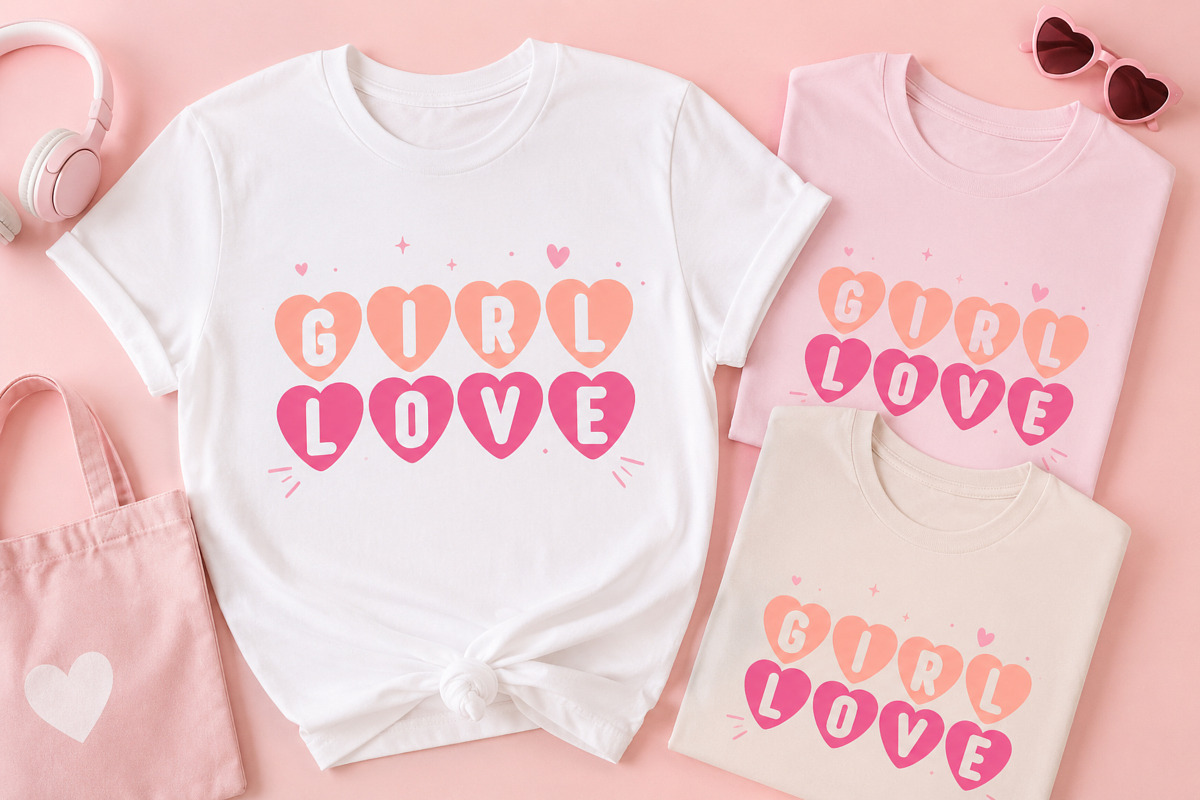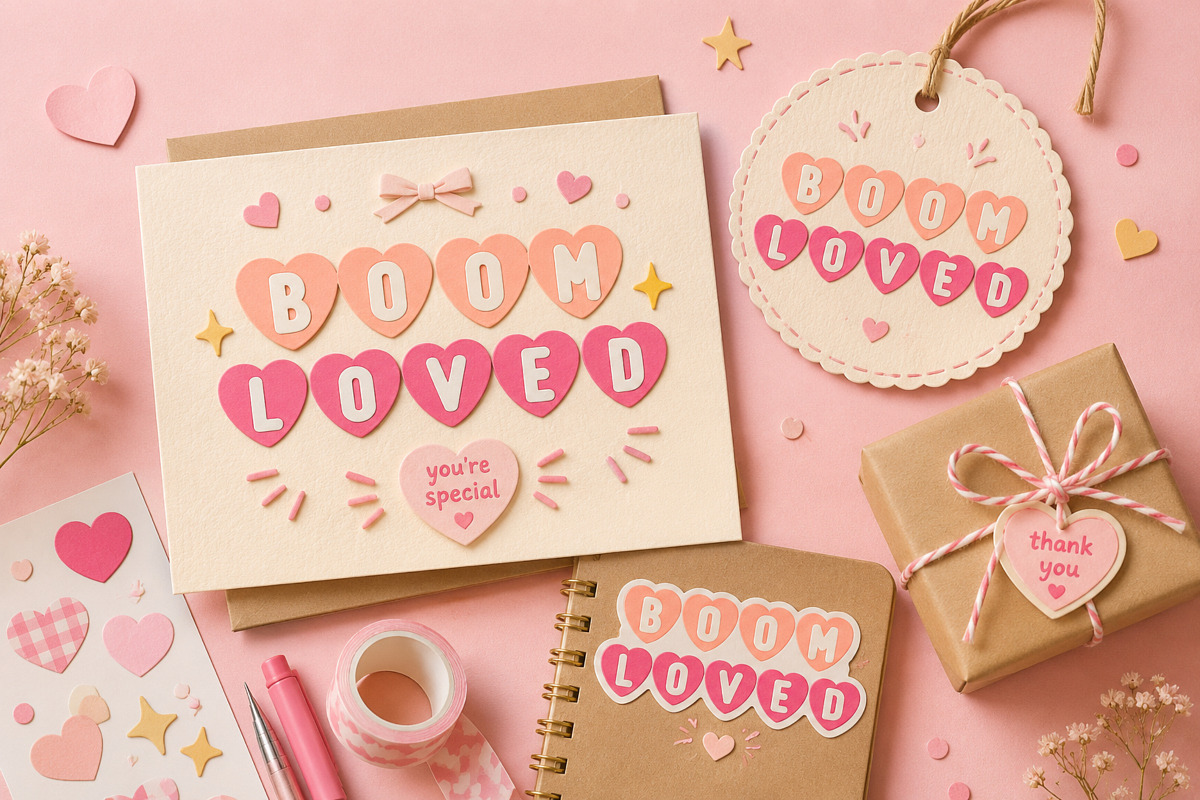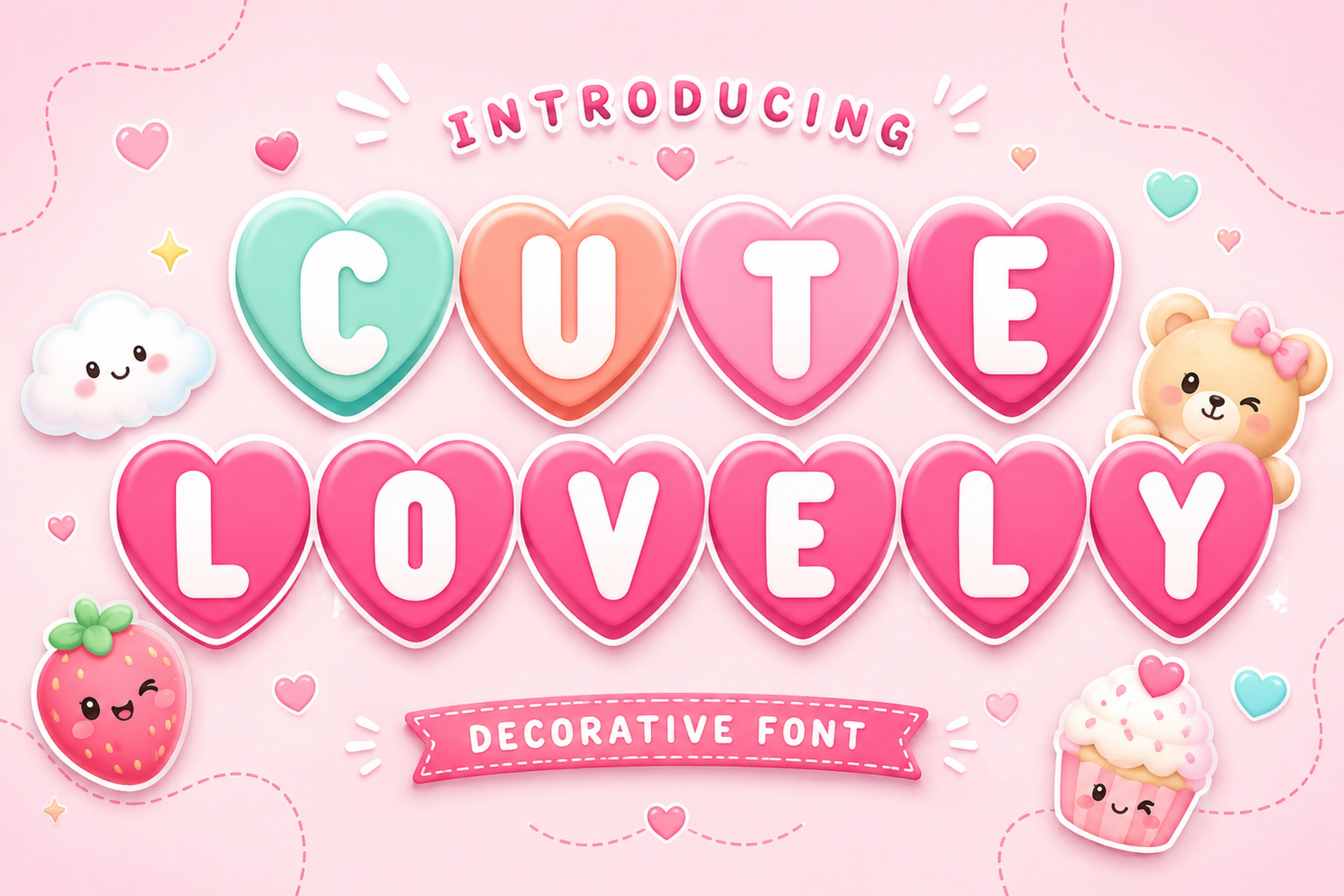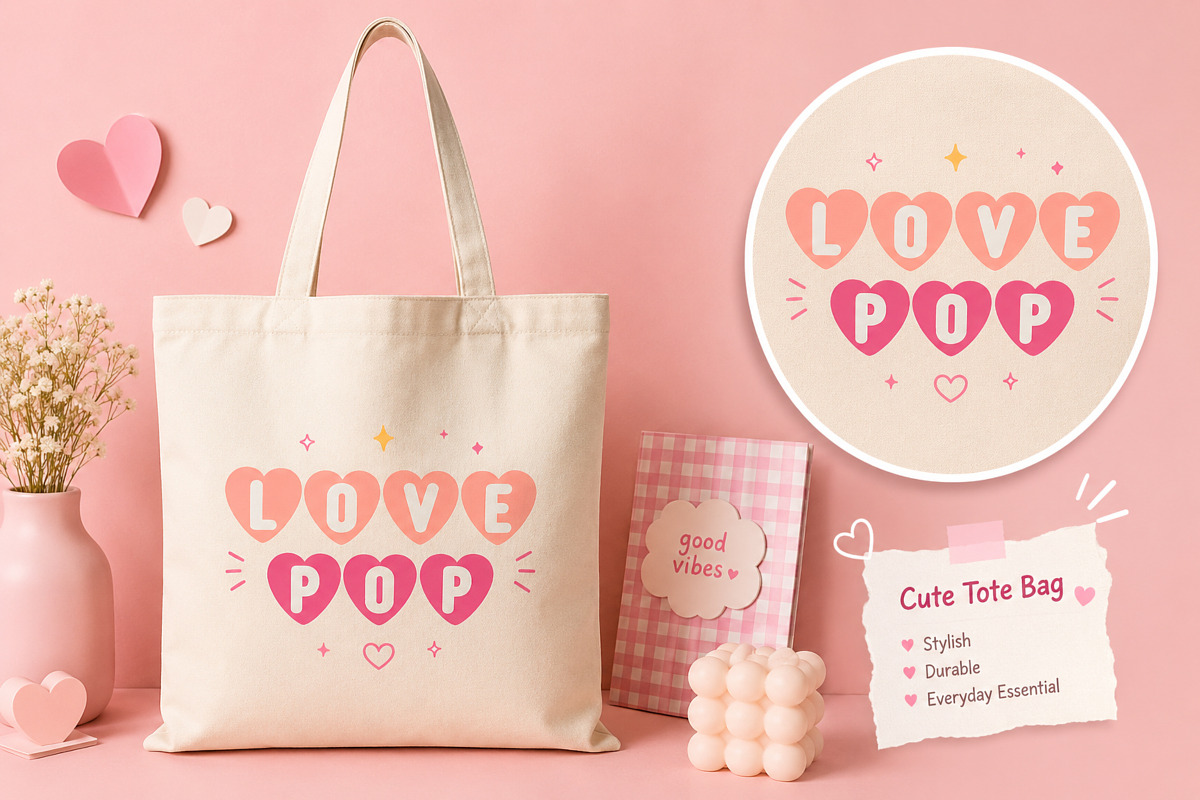
Cute Lovely Font – Heart Shaped Font
Add a touch of sweetness to your designs with Cute Lovely, a playful heart-shaped decorative font created for modern crafters and designers.
Featuring bold rounded letters enclosed in adorable heart shapes, this typeface delivers a charming kawaii, romantic, feminine, and playful look. It works beautifully across a wide range of creative projects, from merchandise and stationery to branding and social media graphics.
T-shirt & apparel designs
Tote bags
Stickers & decals
Cricut & Silhouette crafts
Sublimation designs
Greeting cards
Valentine's Day projects
Wedding stationery
Birthday invitations
Children's & nursery designs
Packaging & labels
Logos & branding
Posters & social media graphics
Printable products
DIY crafts